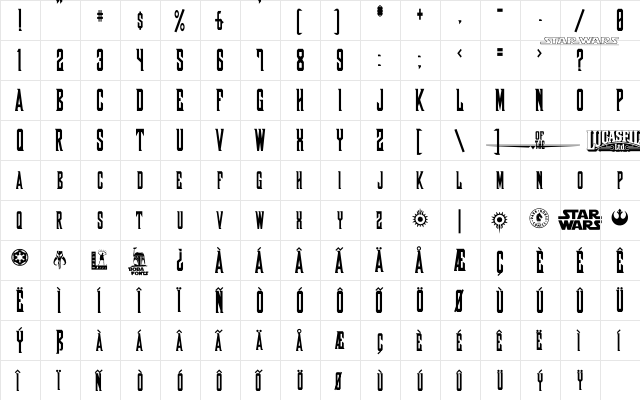
Shadow of Xizor Regular
Design Context for Shadow of Xizor Typeface
Shadow of Xizor brings ornamental detail and strong personality to headlines and identities, where visual impact matters more than quiet functionality.
Font Pairing: Pair with a clean neutral sans-serif for body copy to let Shadow of Xizor's character lead without overwhelming the composition.
Pro Tip: Use Shadow of Xizor exclusively at display sizes — it was designed to be seen, not read at length. Let a neutral companion handle body copy.